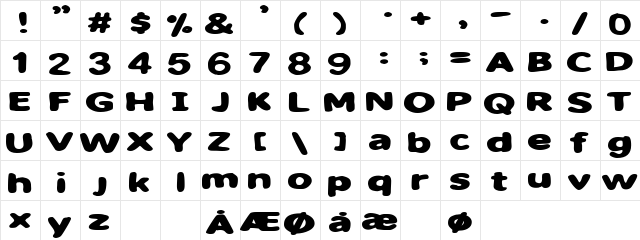
Sweet as candy Regular
Design Context for Sweet as candy Typeface
Sweet as candy is a composed and adaptable typeface that performs quietly and consistently across a wide range of design contexts.